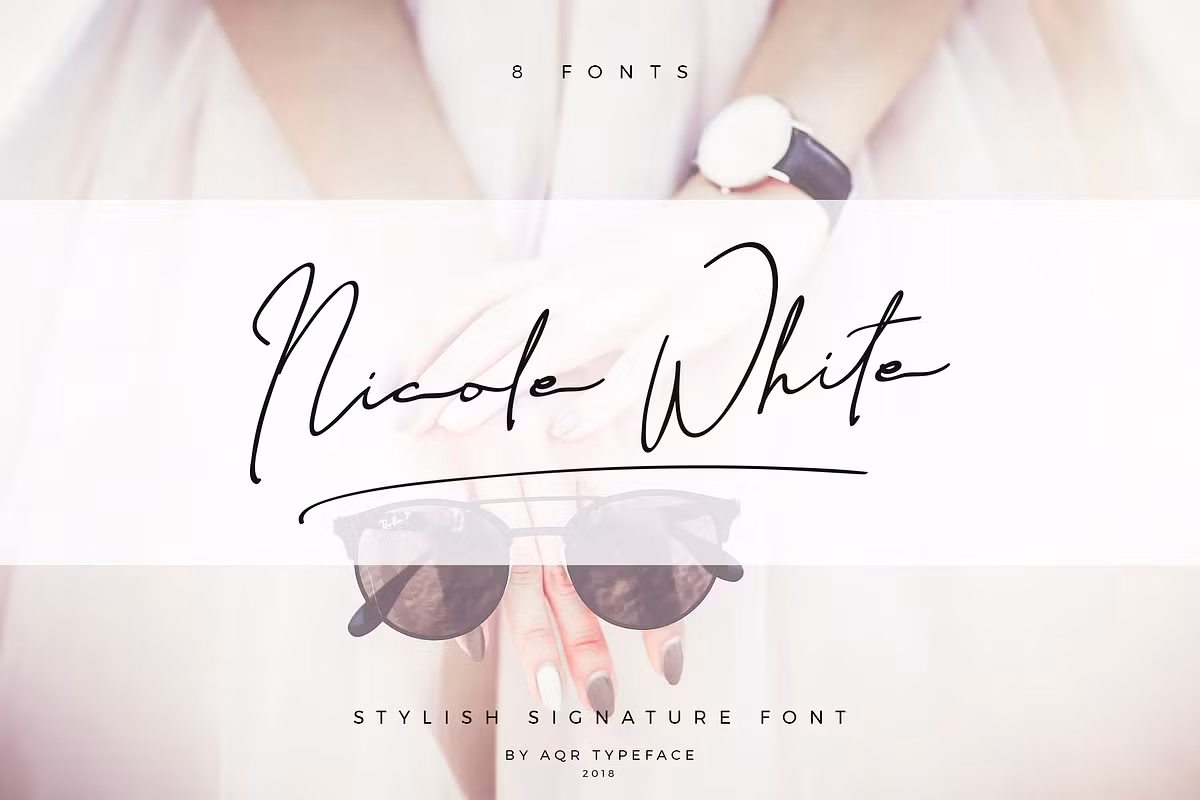
Add a refined, personal touch to your designs with the NicoleWhite Signature Collection Font Free Download — a stylish and elegant script font that mimics the beauty of a handwritten signature. With its fluid strokes, gentle curves, and sophisticated flair, NicoleWhite is perfect for branding, signature logos, wedding stationery, fashion labels, and upscale social media graphics.
This font embodies grace and individuality, giving your typography a soft, luxurious feel. Whether you’re building a personal brand or creating a logo that needs to feel bespoke and polished, NicoleWhite delivers a timeless signature style.